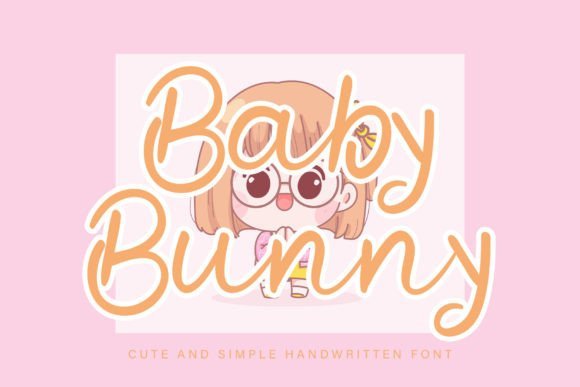
Discover the Sweet Charm of Baby Bunny Font
Have you ever sat down with a blank page and a blank mind, waiting for inspiration to strike? For designers, this moment can be a thrill and a challenge. What if I told you that the perfect spark for your next project is just a font away?
Enter Baby Bunny Font, a delightful and whimsical handwritten script font that’s sure to capture your heart. This charming font is designed to add a touch of joy and romance to any design, from invitations to greeting cards, and even wedding stationery. Whether you’re a seasoned pro or just starting out, Baby Bunny Font is a valuable addition to your design arsenal, offering endless possibilities for creativity and self-expression.
Baby Bunny Font Key Features
- Unique Characteristics: This font features adorable, hand-drawn illustrations of baby bunnies, making it perfect for children’s books, nursery decorations, and other related designs.
- Font Style: The font comes in a single style, but with various weights and sizes, providing versatility for various design needs.
Baby Bunny Font Review
The Baby Bunny Font is a whimsical and playful typeface that’s perfect for projects that need a touch of innocence and charm. Here’s what I think:
- The font’s childlike charm is undeniable, making it a great choice for children’s books, nursery decor, or any project that needs a youthful vibe.
- The letterforms are well-designed and easy to read, even at small sizes.
- The font’s versatility allows it to be used in a variety of contexts, from digital to print.
- The font’s playfulness can sometimes come across as immature or childish, which may not be suitable for all projects.
- The font lacks a strong, bold weight, which can make it difficult to use for headings or titles.
- The font’s limited character set may make it difficult to use for projects that require a wide range of characters.
Overall, the Baby Bunny Font is a cute and charming typeface that’s perfect for projects that need a touch of whimsy. While it has some limitations, its unique charm makes it a great choice for designers looking to add a playful touch to their work.
Tips for Getting the Most Out of Baby Bunny Font
Use Baby Bunny Font for whimsical and playful designs, such as:
- Infant and toddler product branding
- Illustrated books and magazines
Remember to pair the font with complementary colors and design elements to create a cohesive and engaging visual identity.